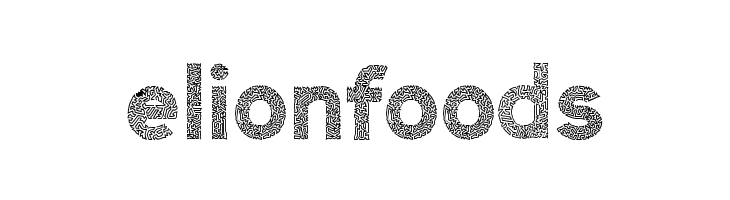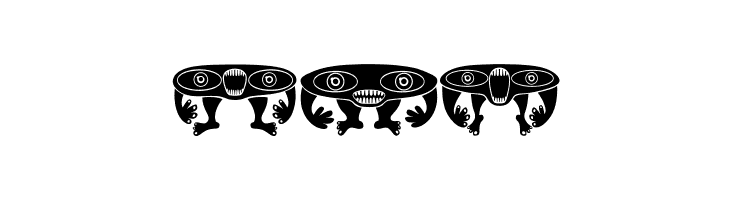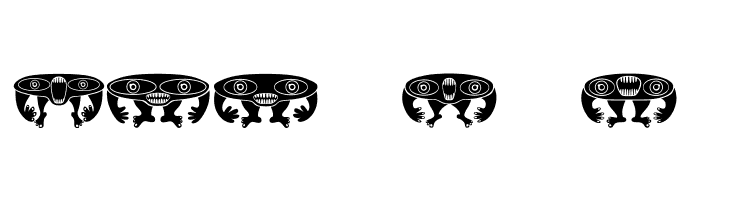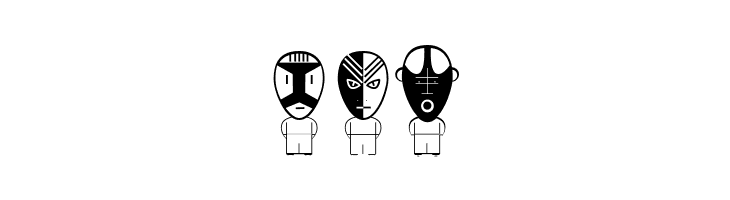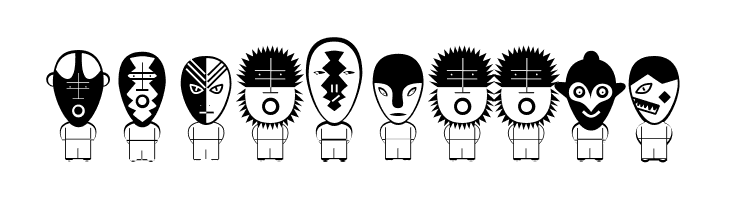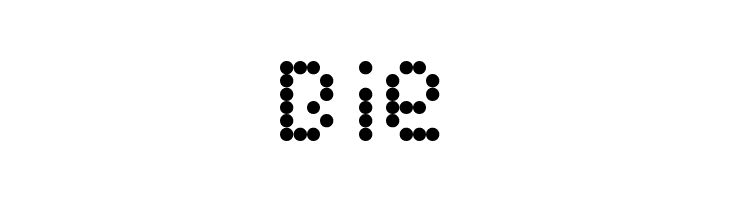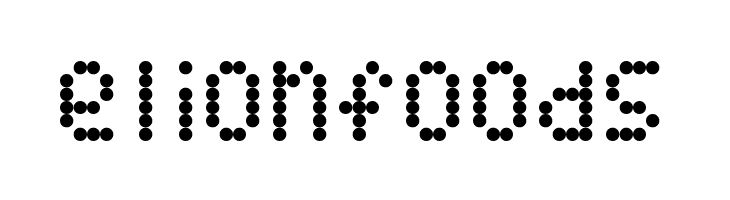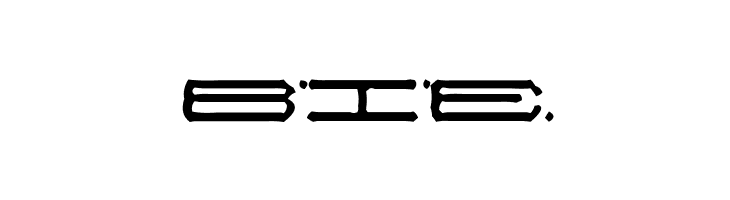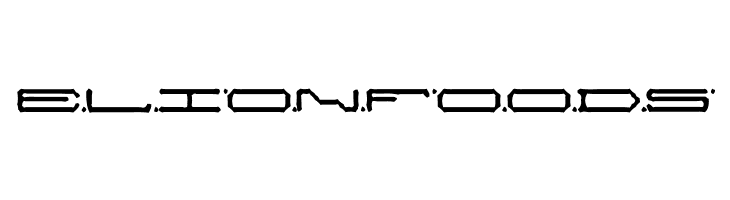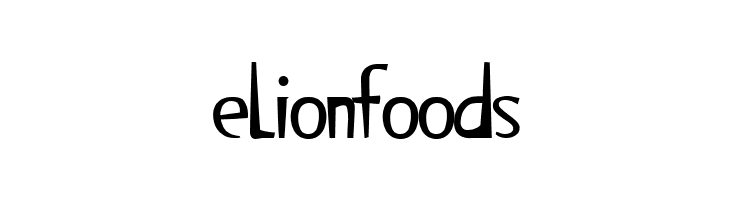
• Aliens can suck it!
( Marty Bampton )
A bold, angular font with a futuristic and geometric design.
• Aliens Regular
A playful, alien-themed decorative font with bold, stylized characters.
• AlienSign
( Fonts by Darwinoo )
A bold, decorative font with intricate maze-like patterns.
• AliensInverse
A decorative set of abstract alien-themed character illustrations.
• AliensNew
Whimsical, abstract alien figures form each character in this decorative display font.
• Alienss Regular
• AlienSweater
A pixelated, knitted-style font with a retro, handcrafted look.
• AlienWaffle
A playful, dotted font with a whimsical and extraterrestrial vibe.
• alienwarping
• AlienzMonkey